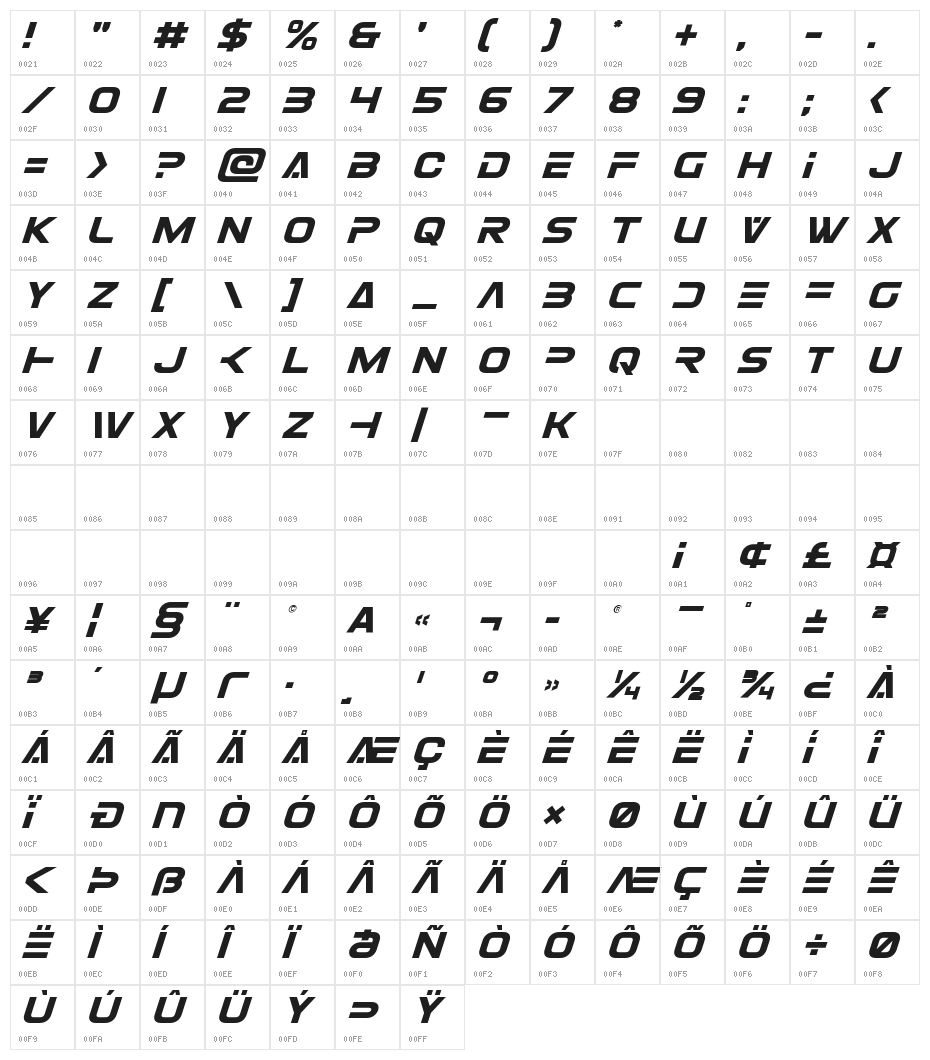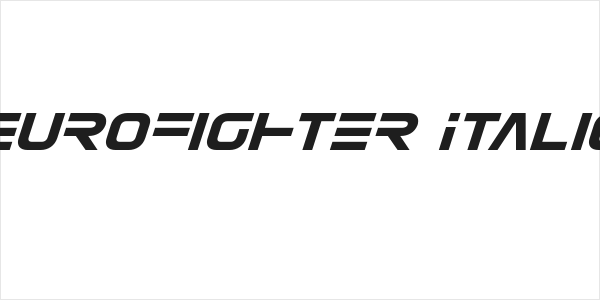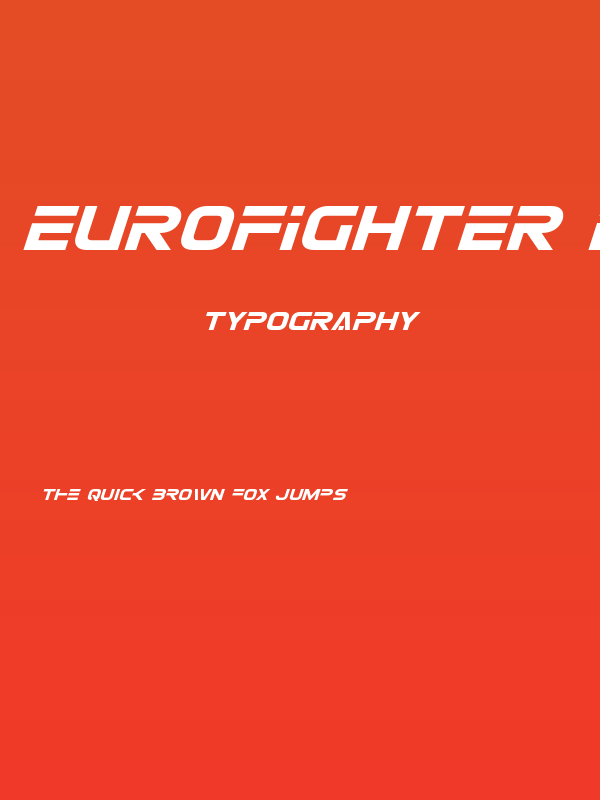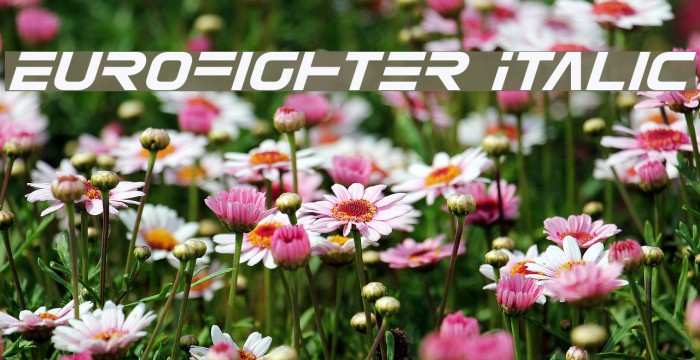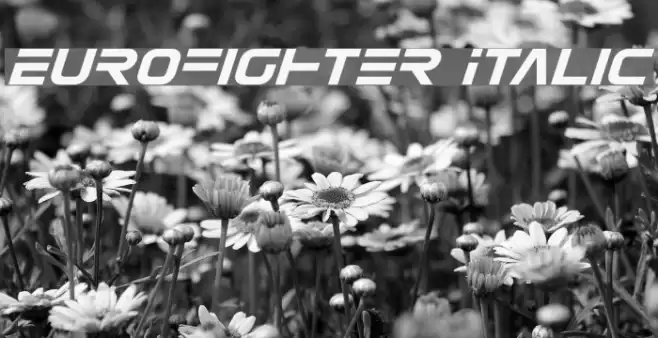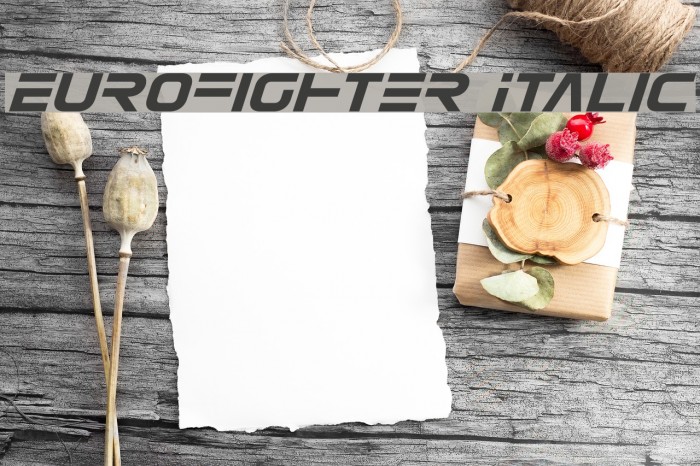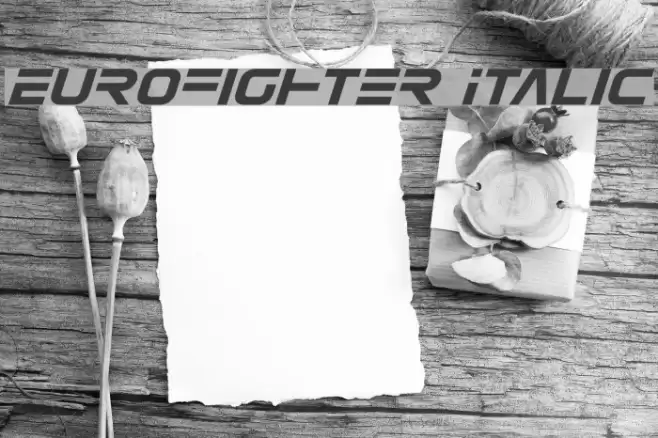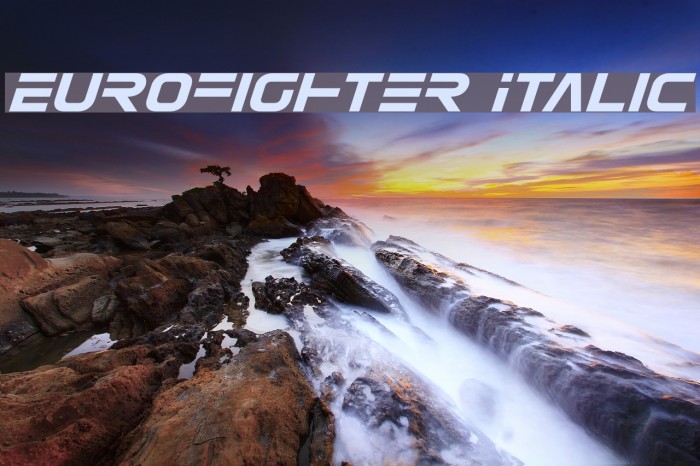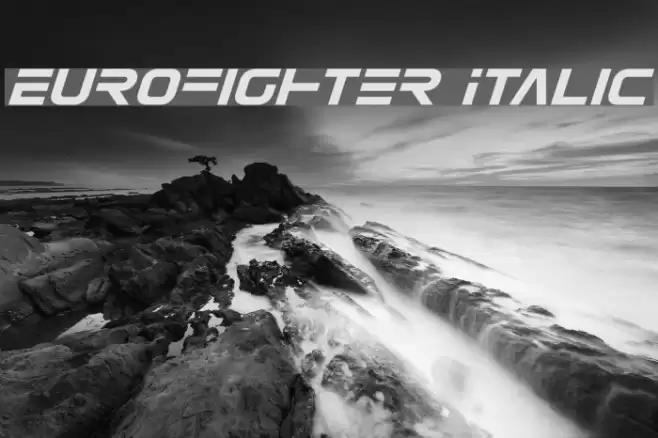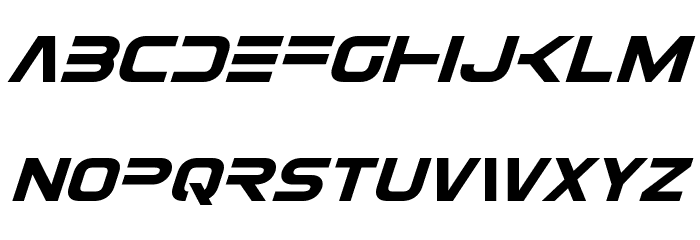
Eurofighter Italic Font
Eurofighter Italic Description
This font exudes a sleek and modern aesthetic, characterized by its italicized and angular letterforms. The design features sharp edges and a forward-leaning stance, giving it a dynamic and futuristic appearance. The uppercase letters are bold and commanding, while the lowercase letters maintain a consistent style with slightly less emphasis. The numerals are clear and distinct, matching the overall angular theme. Special characters are well-integrated, maintaining the font's cohesive style. The overall look is reminiscent of high-speed technology and innovation, making it ideal for projects that require a sense of motion and modernity.
| Use Case | Logos, Headlines, Branding |
| Proposed Projects | Ideal for technology branding, automotive designs, sports team logos, and futuristic-themed projects. |